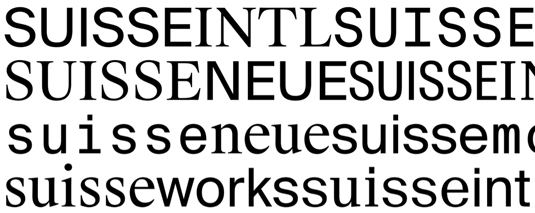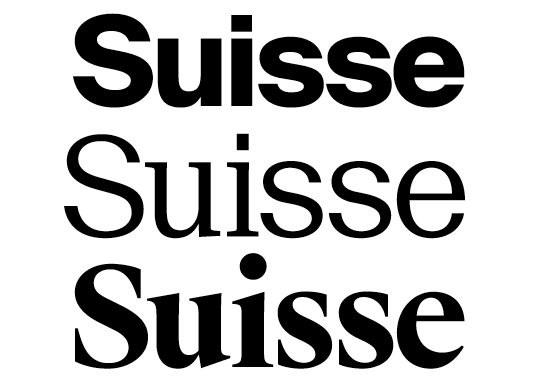
Greatest fonts countdown: 90 - Suisse
We're counting down the 100 greatest typefaces in existence. Here is number 90...
90. Suisse
- Ian Party (Swiss Typefaces), 2011
Formerly known as Suisse BP Serif, Suisse is a collection of three OpenType families: Suisse Works, Suisse International and Suisse Neue published by Swiss Typefaces in 2011. The three sub-families that make up the type system have been created to work in harmony with each other: Suisse Works being a classic serif that makes a great text font; International a sans (including a condensed and monospaced); and Neue a serif with lighter weights. There are 45 styles in the set and a standard license includes desktop, web, mobile and e-pub usage.